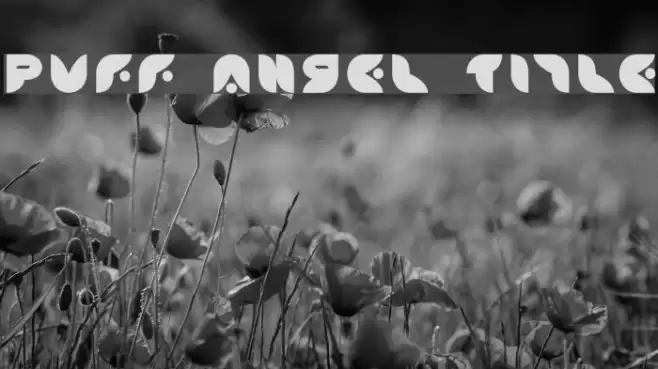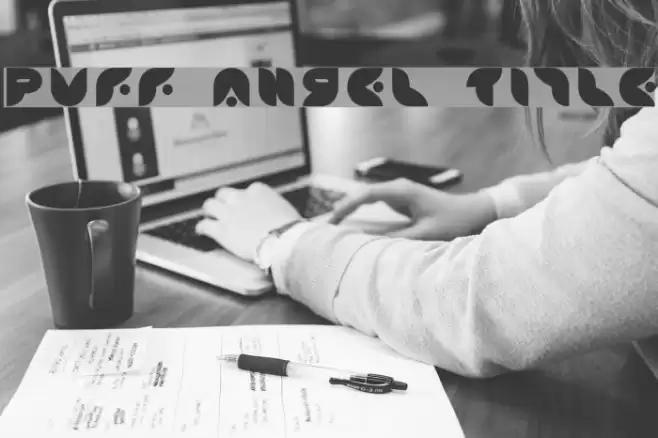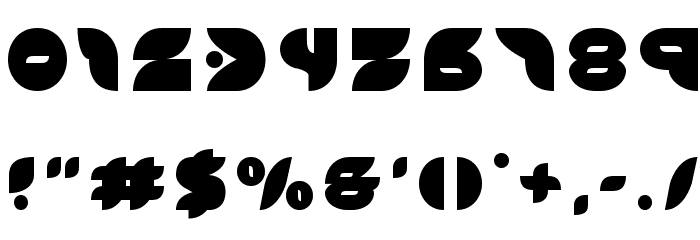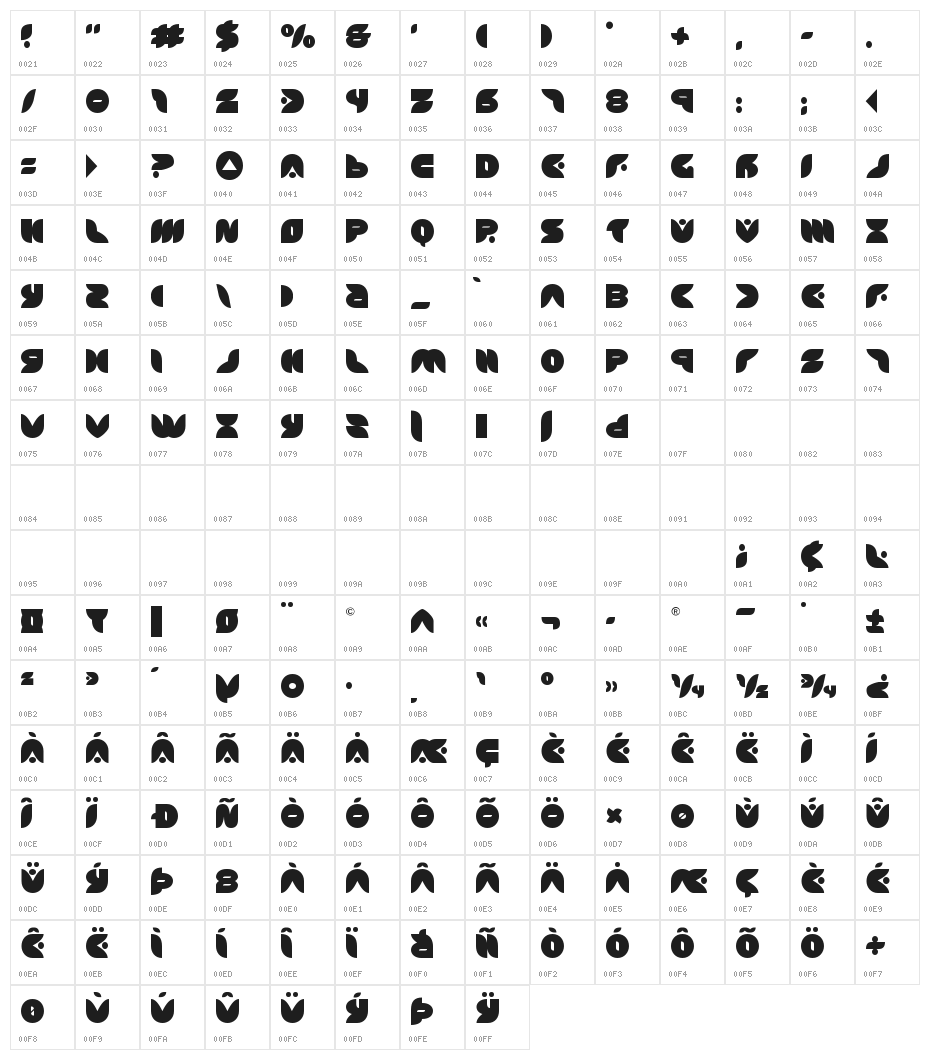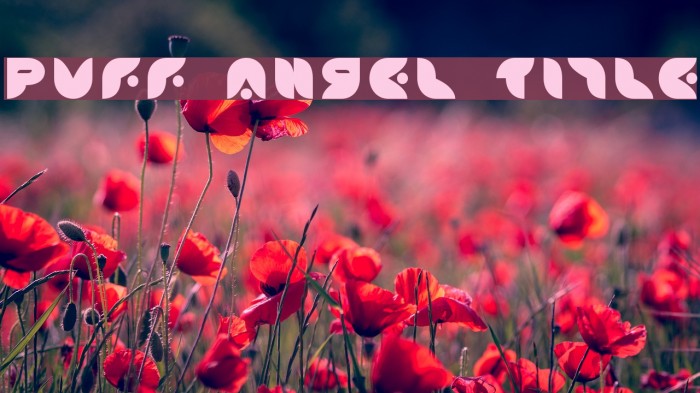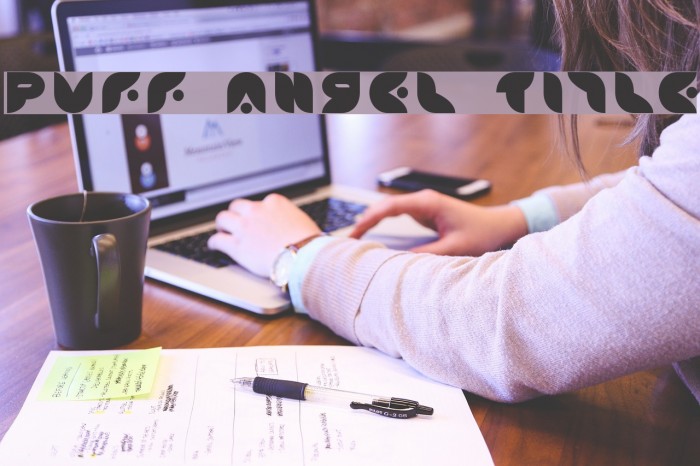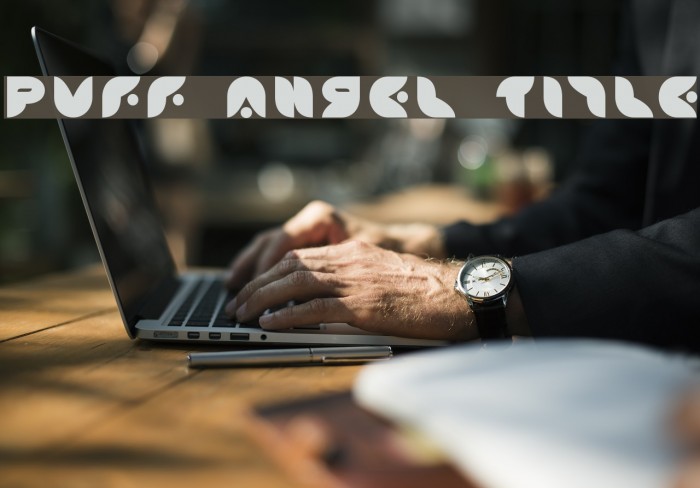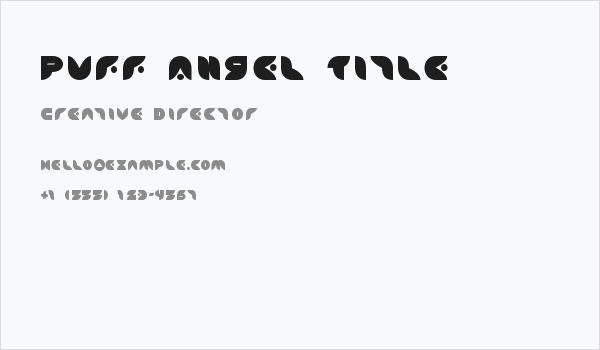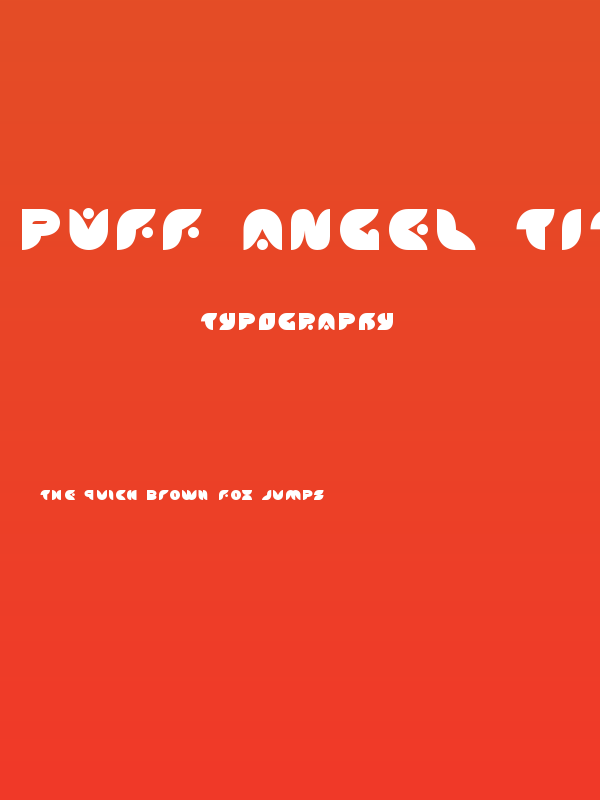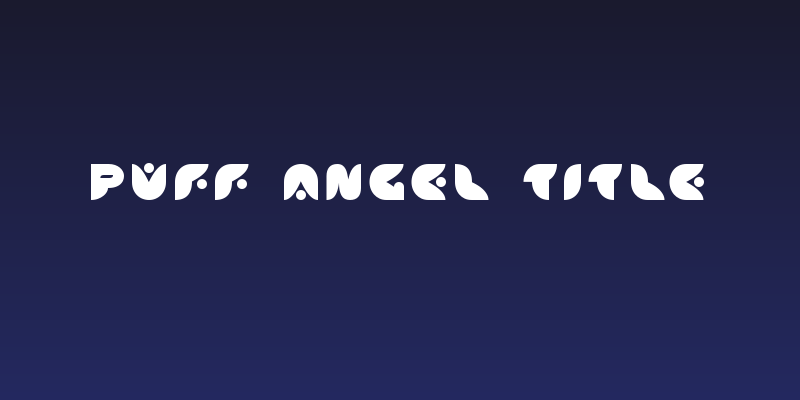
Puff Angel Title Font
Puff Angel Title Description
This font features a bold and playful design with thick, rounded shapes that create a sense of whimsy and fun. The characters are highly stylized, with a unique geometric structure that incorporates circular and semi-circular elements, giving it a distinct and modern appearance. The uppercase and lowercase letters maintain a consistent style, while the numbers and special characters blend seamlessly into the overall design. The font's boldness and unique character shapes make it ideal for eye-catching titles and creative projects.
A bold, playful font with rounded, geometric shapes and a modern, whimsical style from Uncategorized fonts.
- Proposed Projects: Ideal for creative projects such as children's book covers, playful branding, posters, and eye-catching headlines.